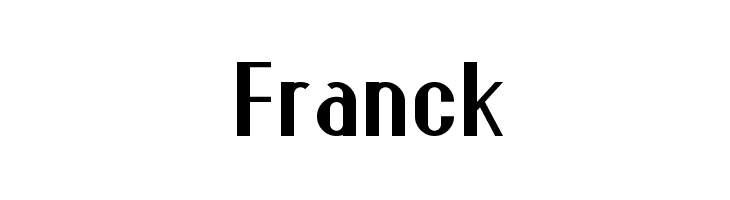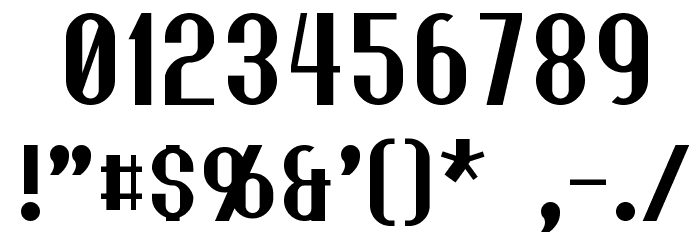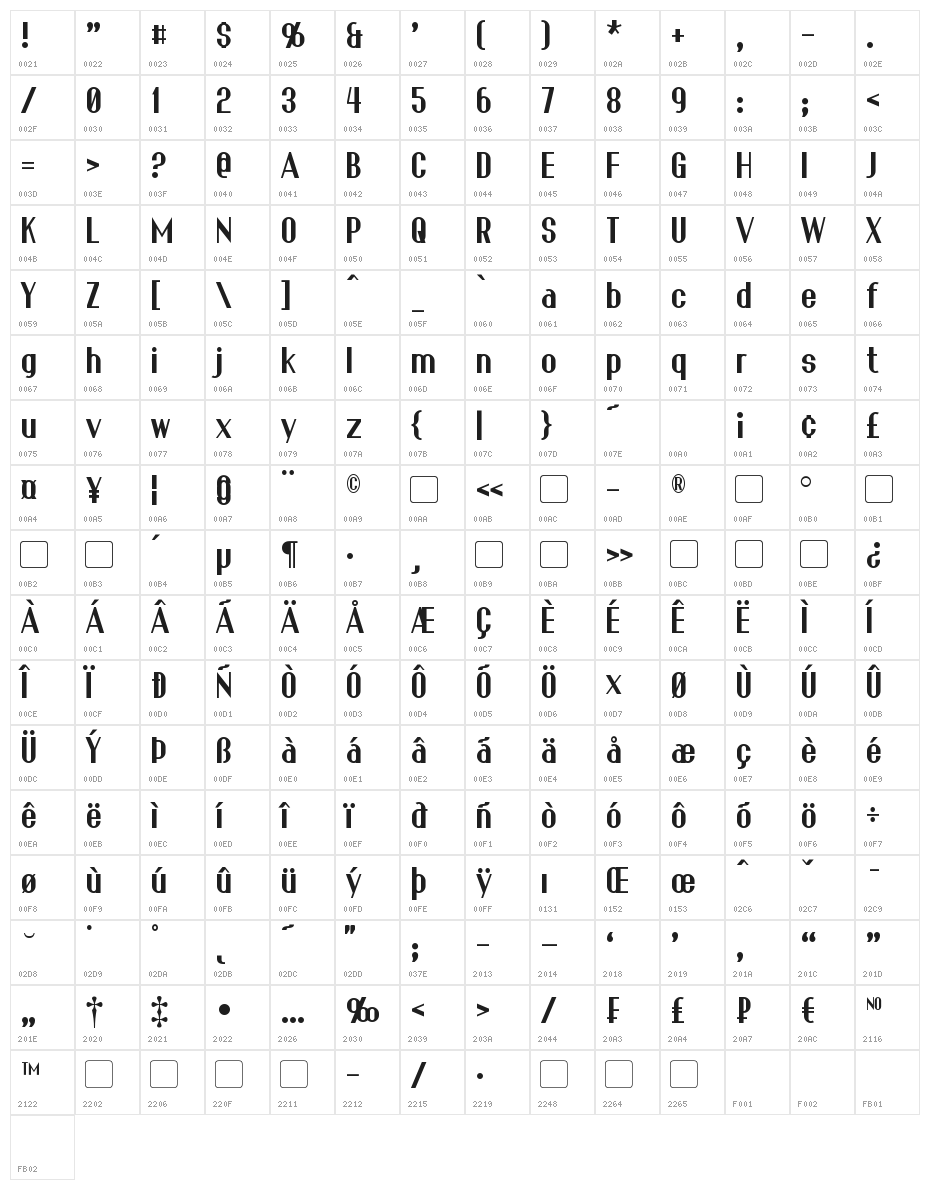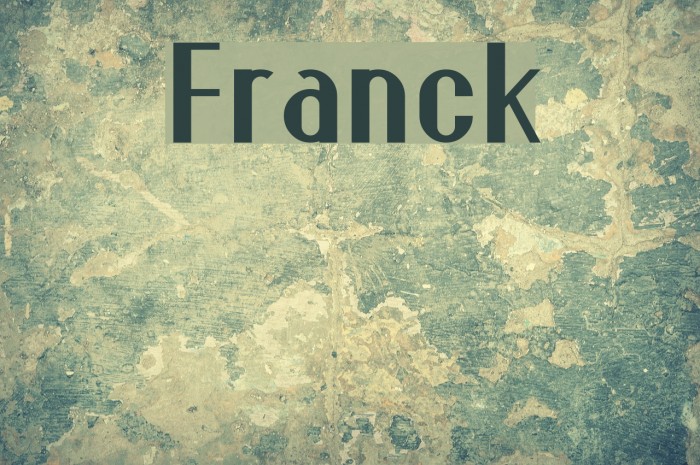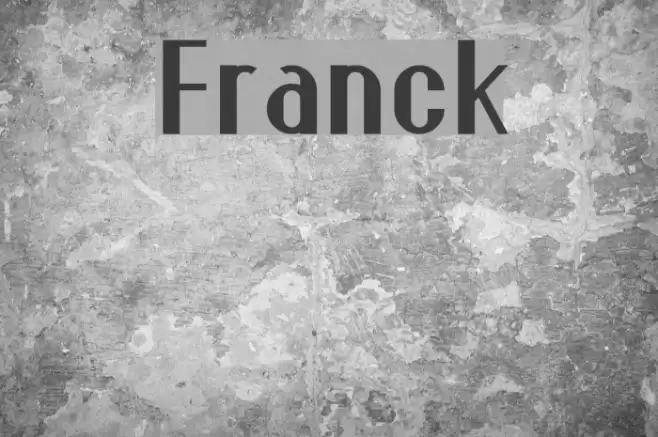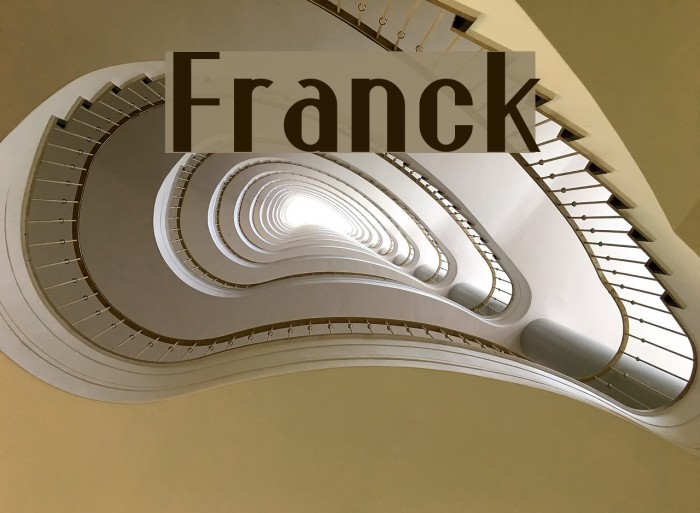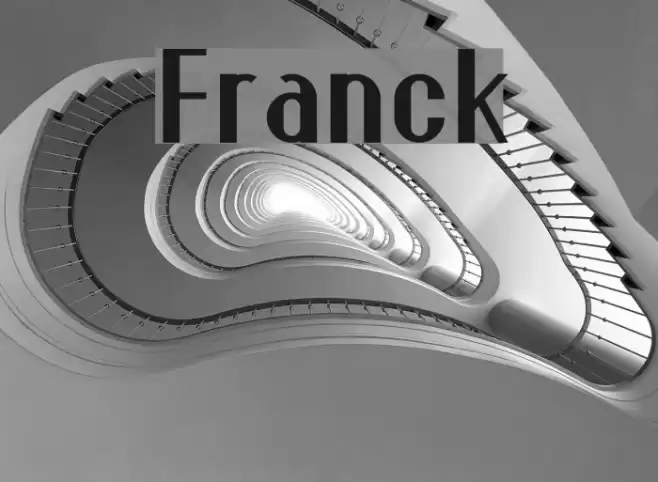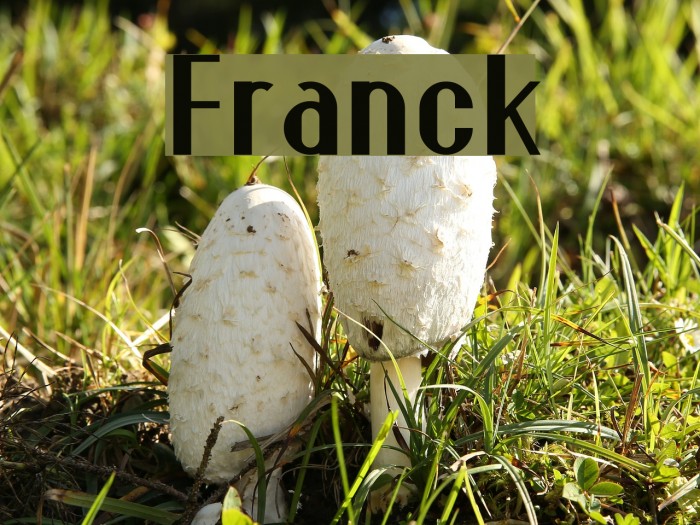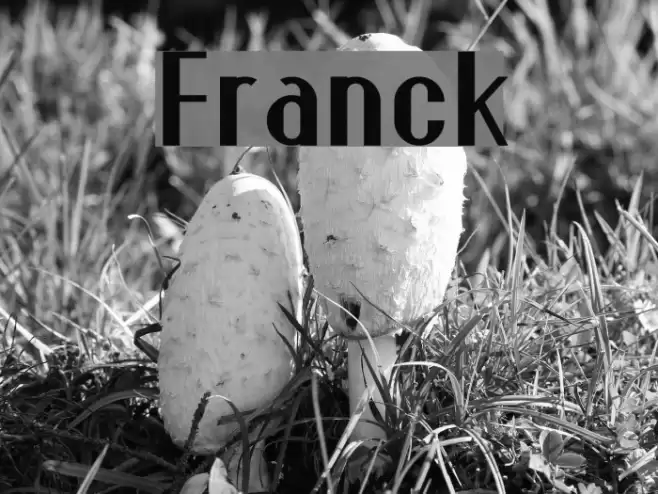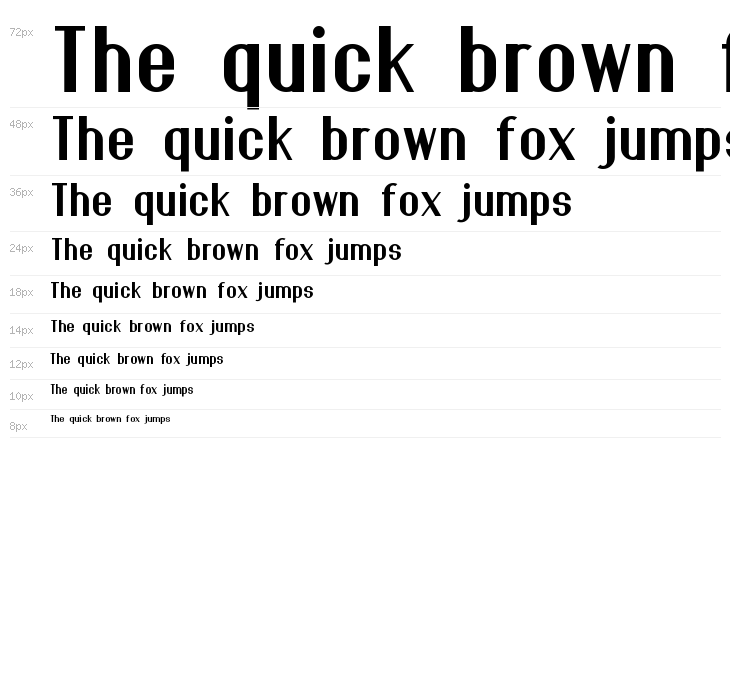
Franck Font
Franck Description
This font features a bold and modern sans-serif design with clean, straight lines and a slightly condensed appearance. The uppercase letters are tall and commanding, while the lowercase letters maintain a consistent height, providing a harmonious balance. The numerals are clear and easy to read, making them suitable for various applications. Special characters are distinct and well-integrated into the overall design. The font's uniform stroke width and lack of serifs contribute to its contemporary and professional look.
| Use Case | Headlines, Logos, Advertising |
| Proposed Projects | Ideal for branding, advertising, headlines, and digital media where a strong, modern presence is desired. |